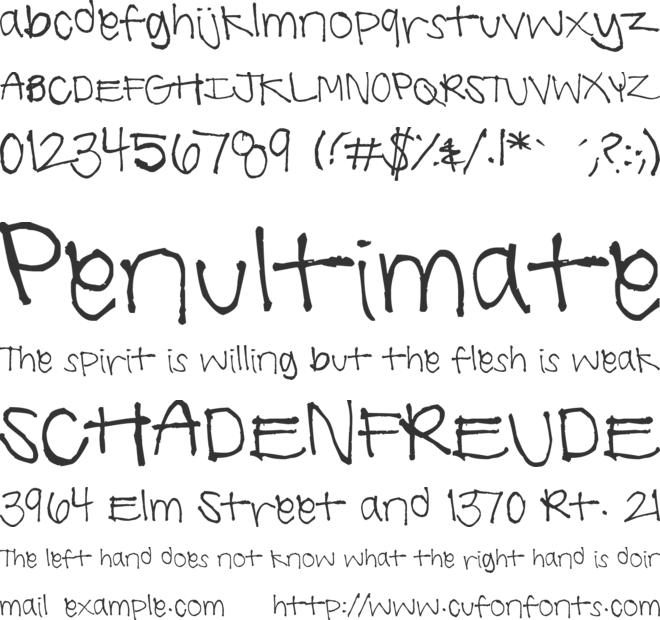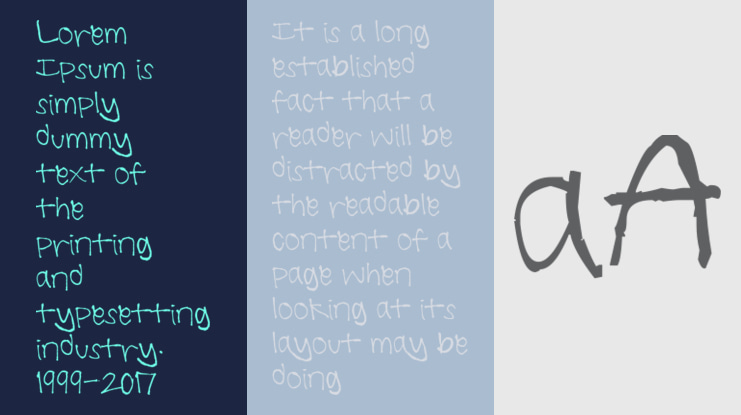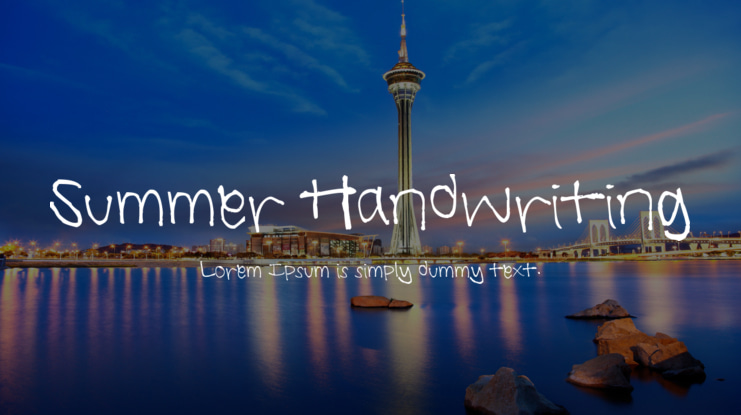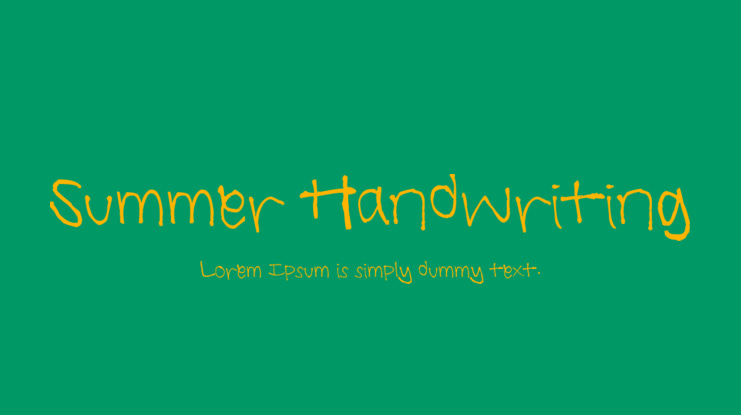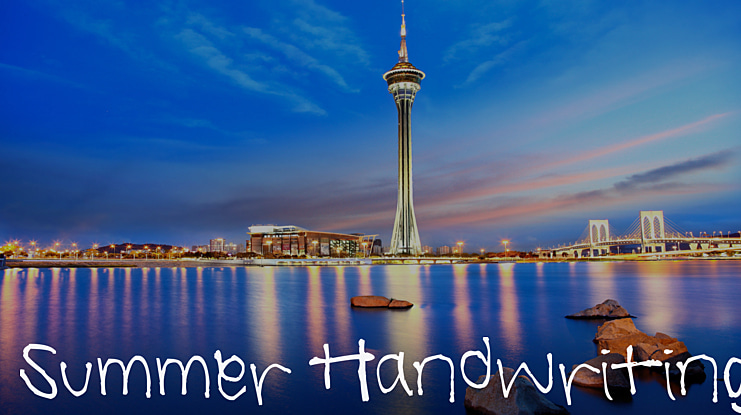
Summer Handwriting Font
This is what my handwriting has degenerated into after being out of school for a couple weeks. But I sorta like it more this way.